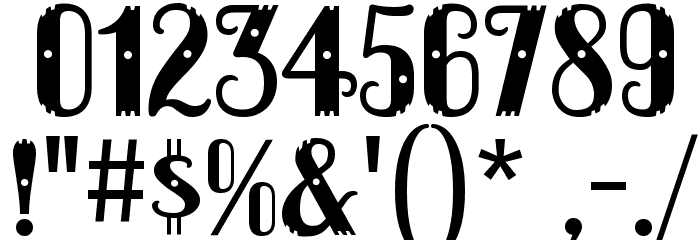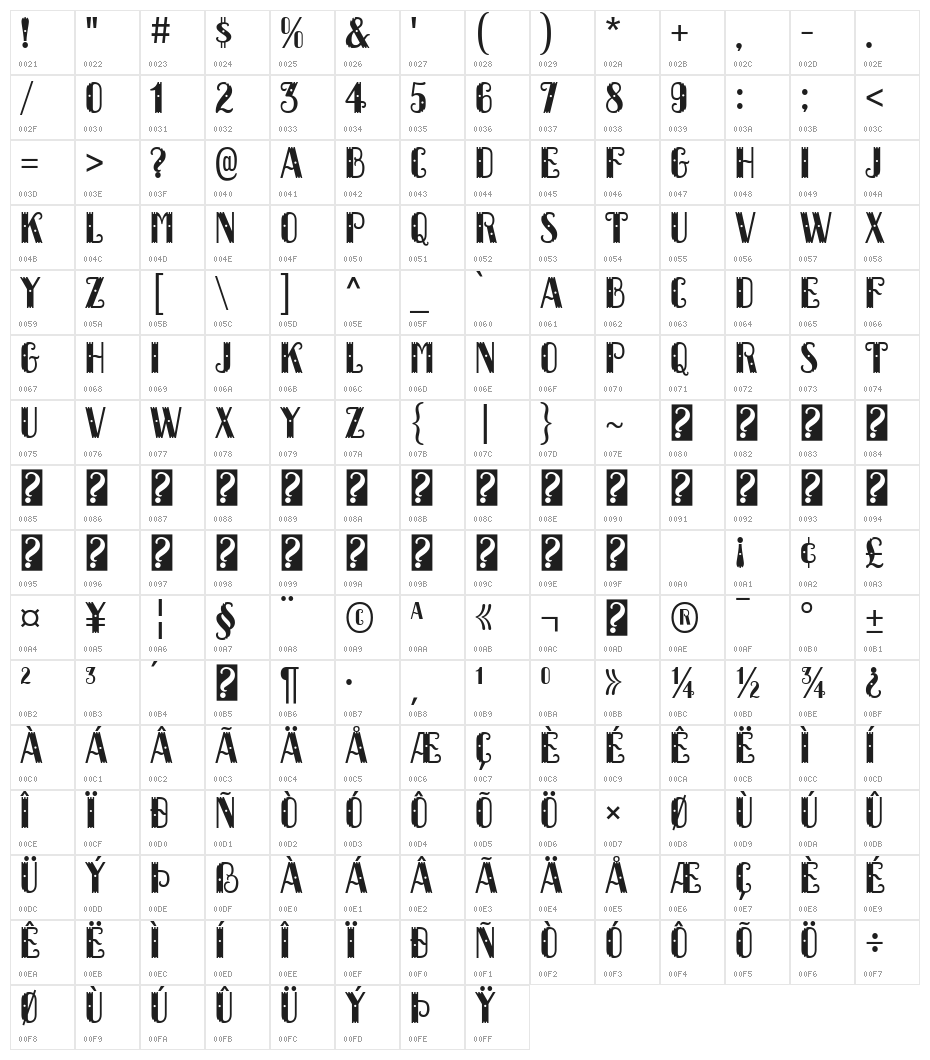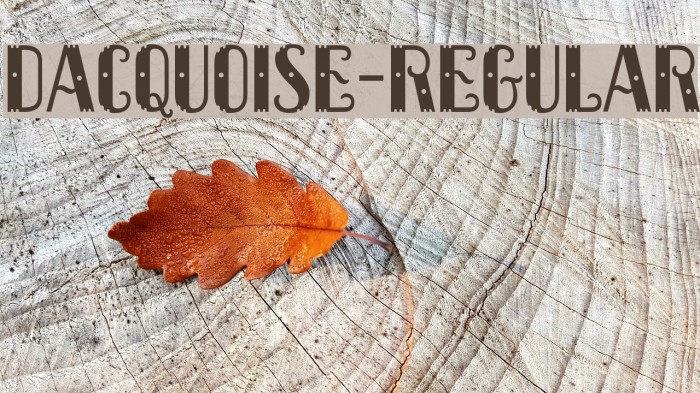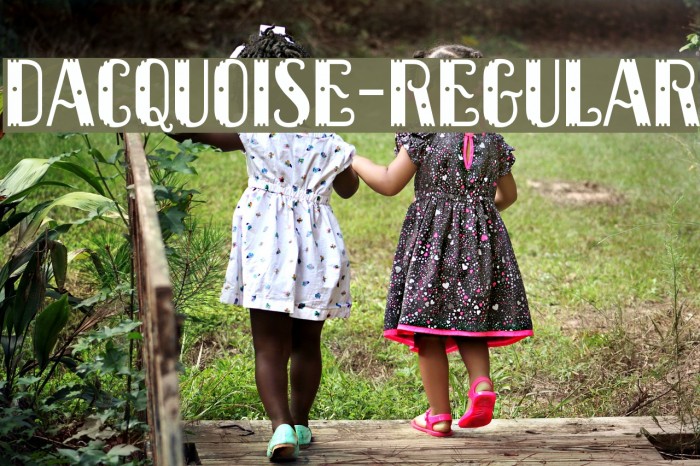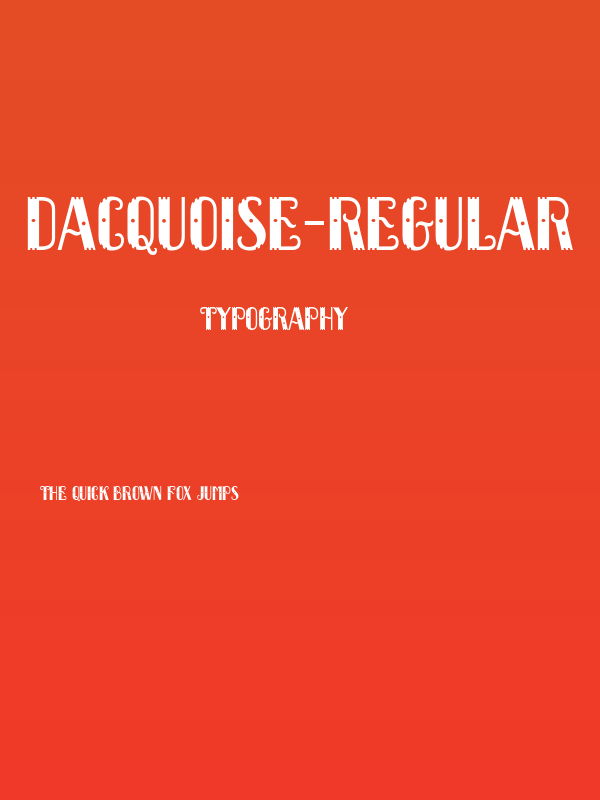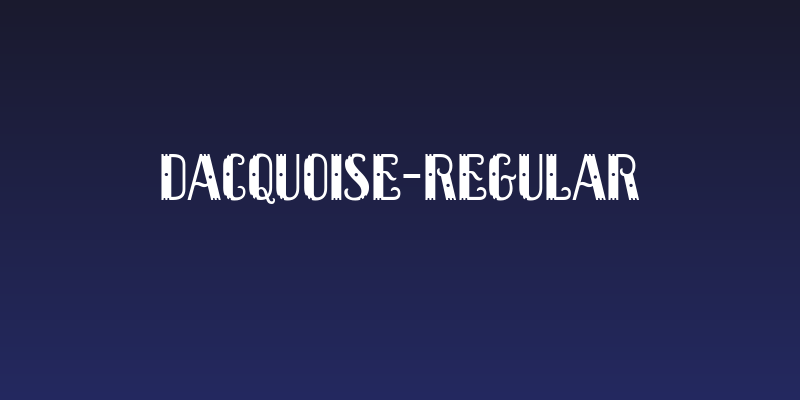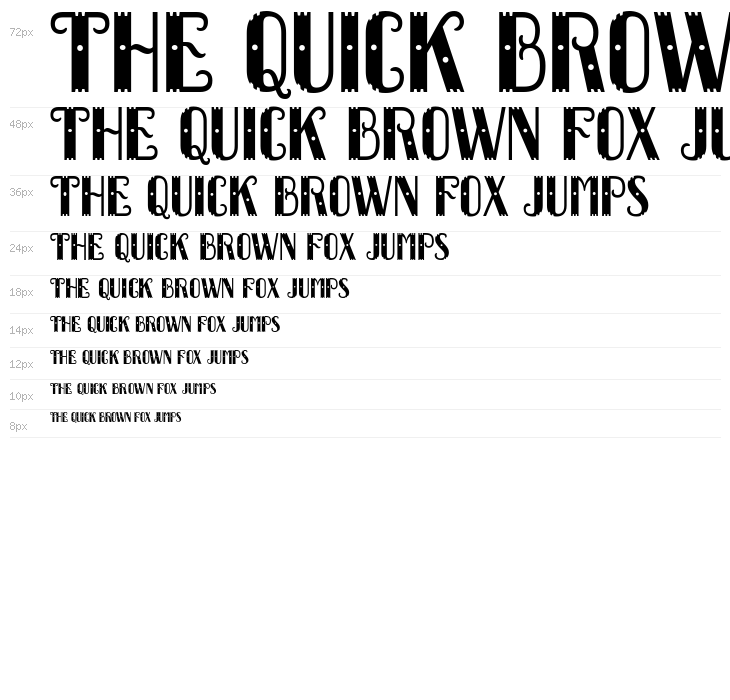
Dacquoise-Regular Font
Dacquoise-Regular Description
This font features a bold and decorative style with a unique, playful character. Each letter is adorned with small circular cutouts, adding a whimsical touch. The strokes are thick and consistent, providing a strong visual impact. The uppercase and lowercase letters maintain a cohesive design, while the numerals and special characters follow the same decorative theme. The font's distinct style makes it suitable for eye-catching designs and creative projects.
| Proposed Projects | Ideal for posters, logos, and creative branding projects that require a bold and whimsical touch. |